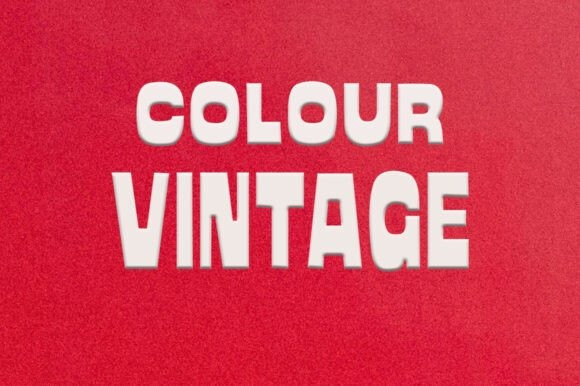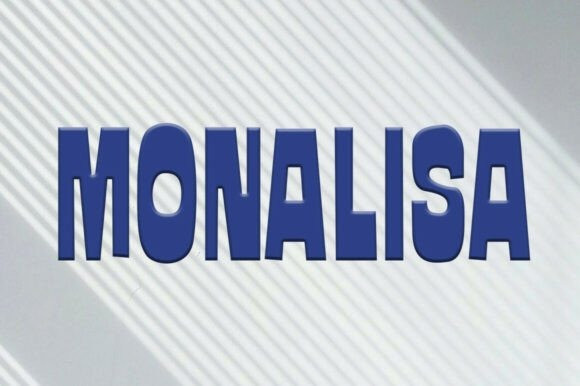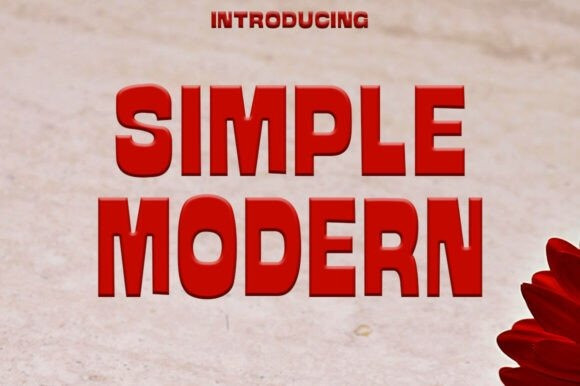
Simple Modern Font
Simple Modern Font is a bold sans-serif display font that immediately captures attention with its thick block letterforms and strong geometric balance. Its solid strokes and subtle three-dimensional shading create a striking presence, making every word appear powerful and modern.
The lack of ornamental flourishes allows the design to stay clean and versatile, while the heavyweight ensures it remains impactful across a variety of creative projects. Its commanding tone works equally well for posters, t-shirts, banners, logos, and digital graphics, offering designers a font that is both simple and memorable.
The combination of modern minimalism with a bold, confident structure gives it a timeless appeal that enhances any project where clarity and emphasis are key.